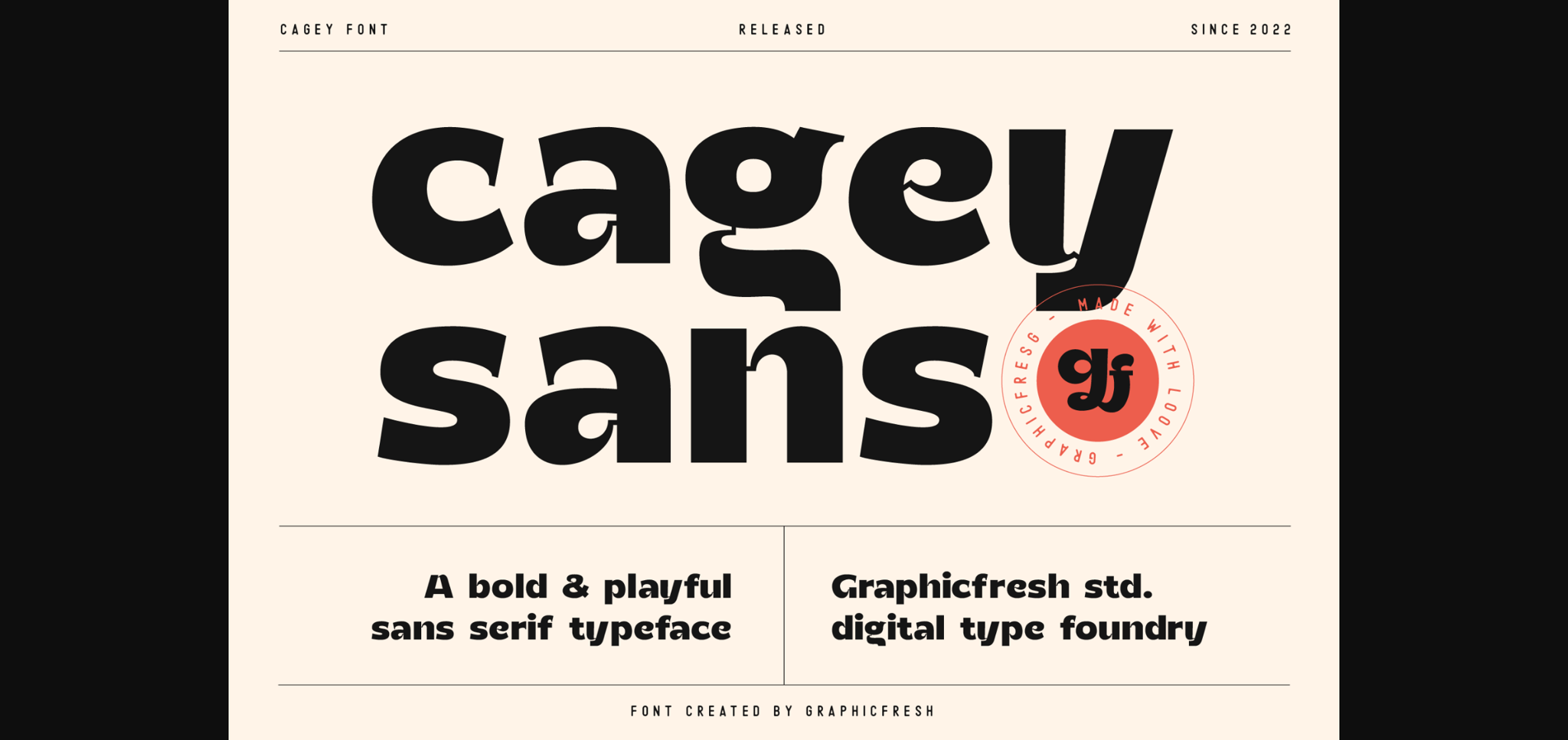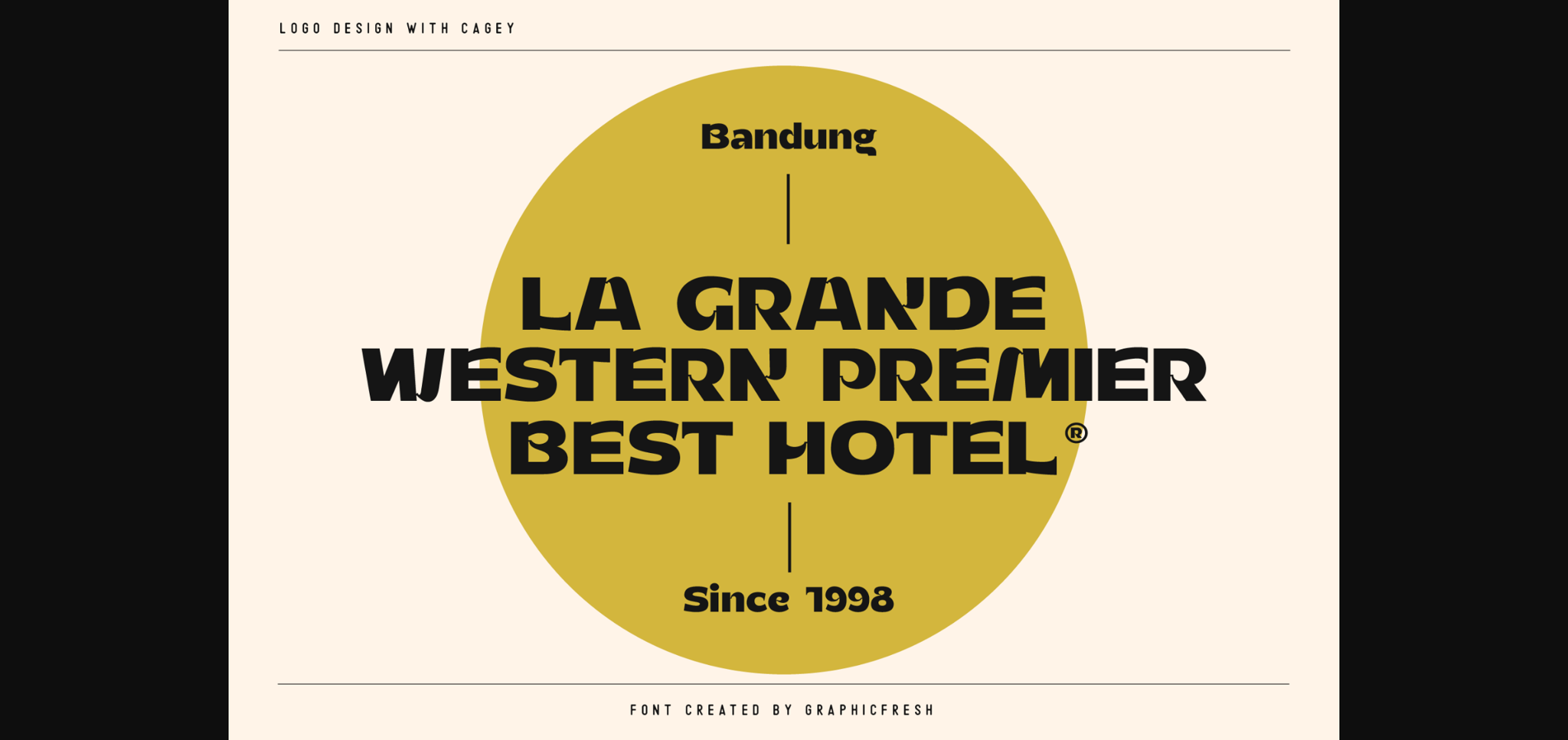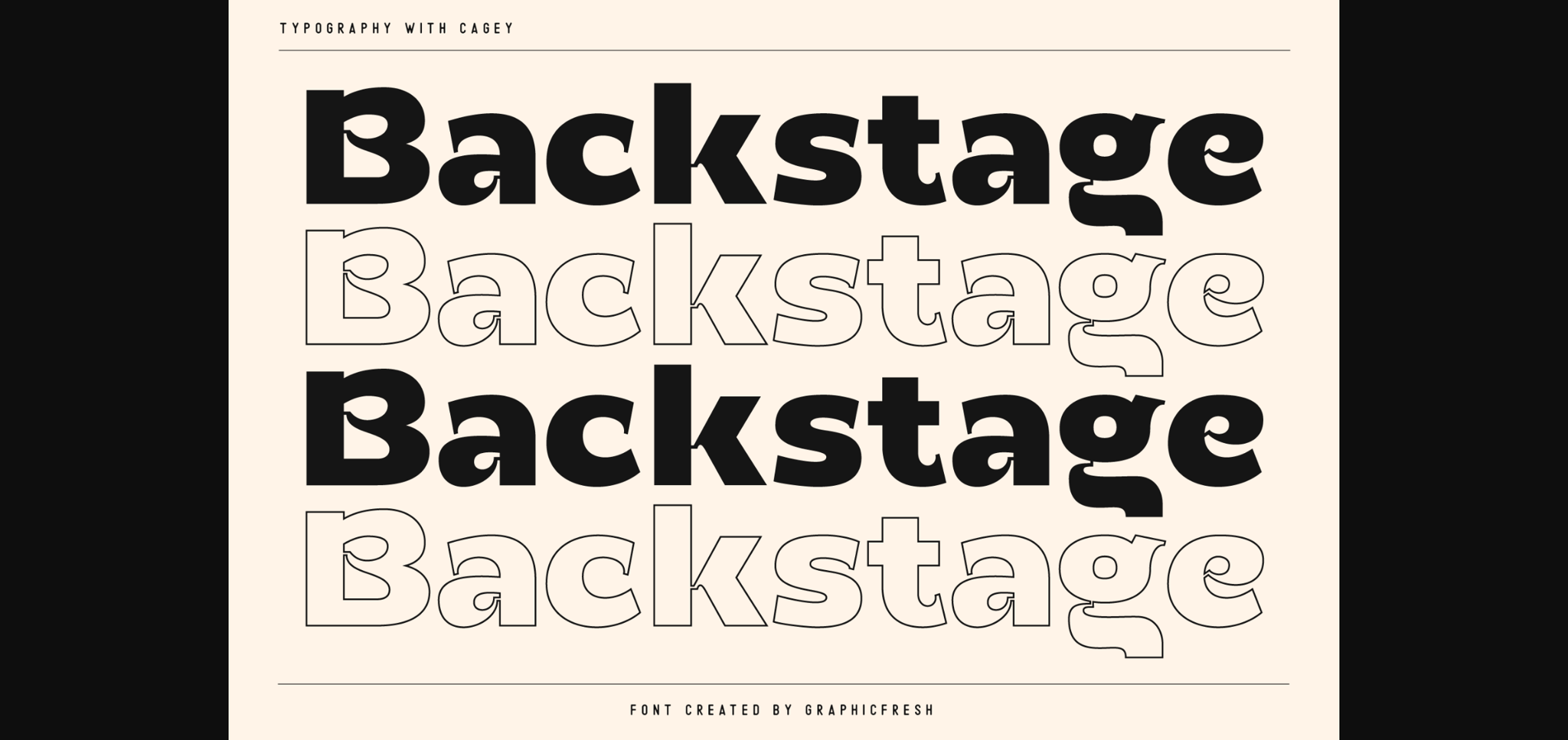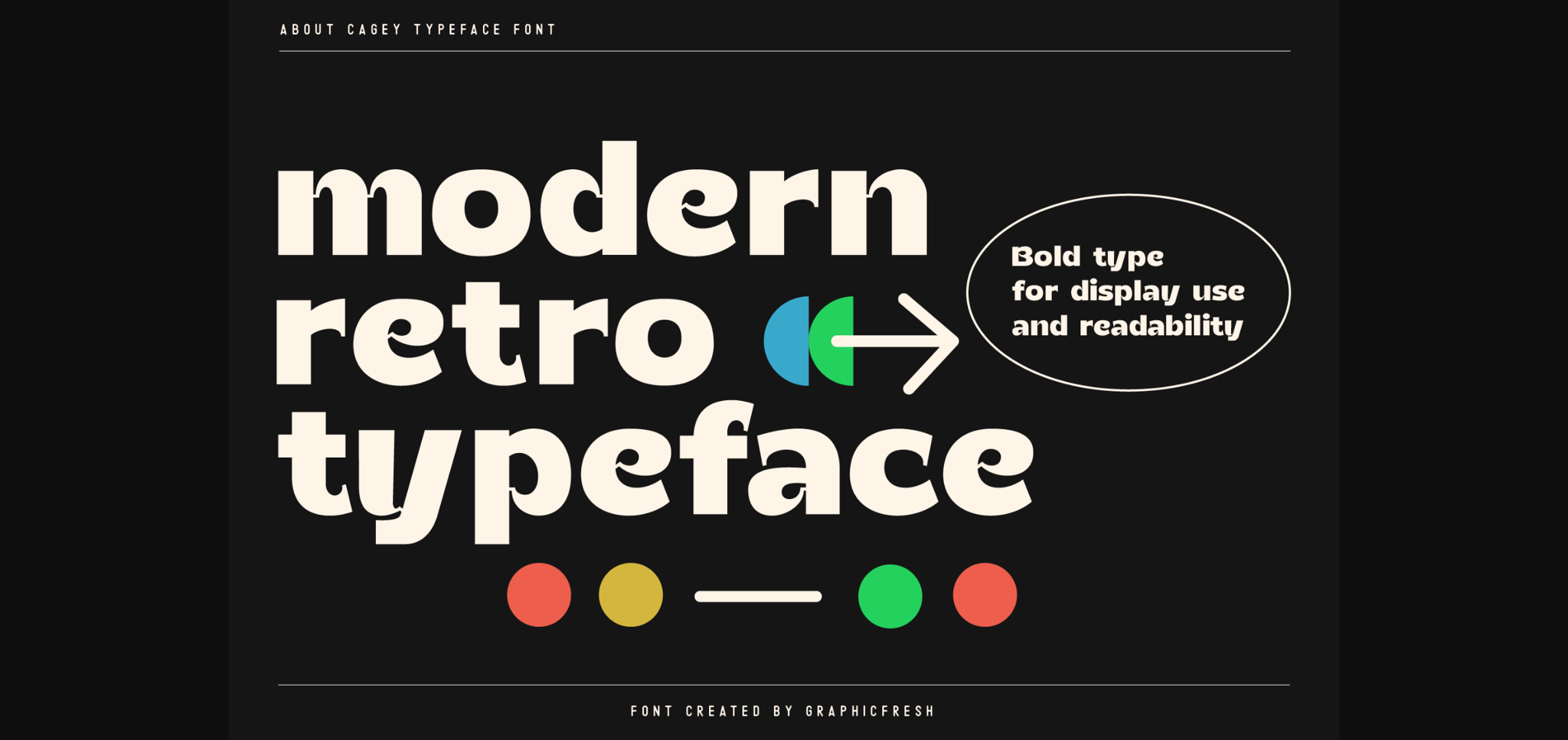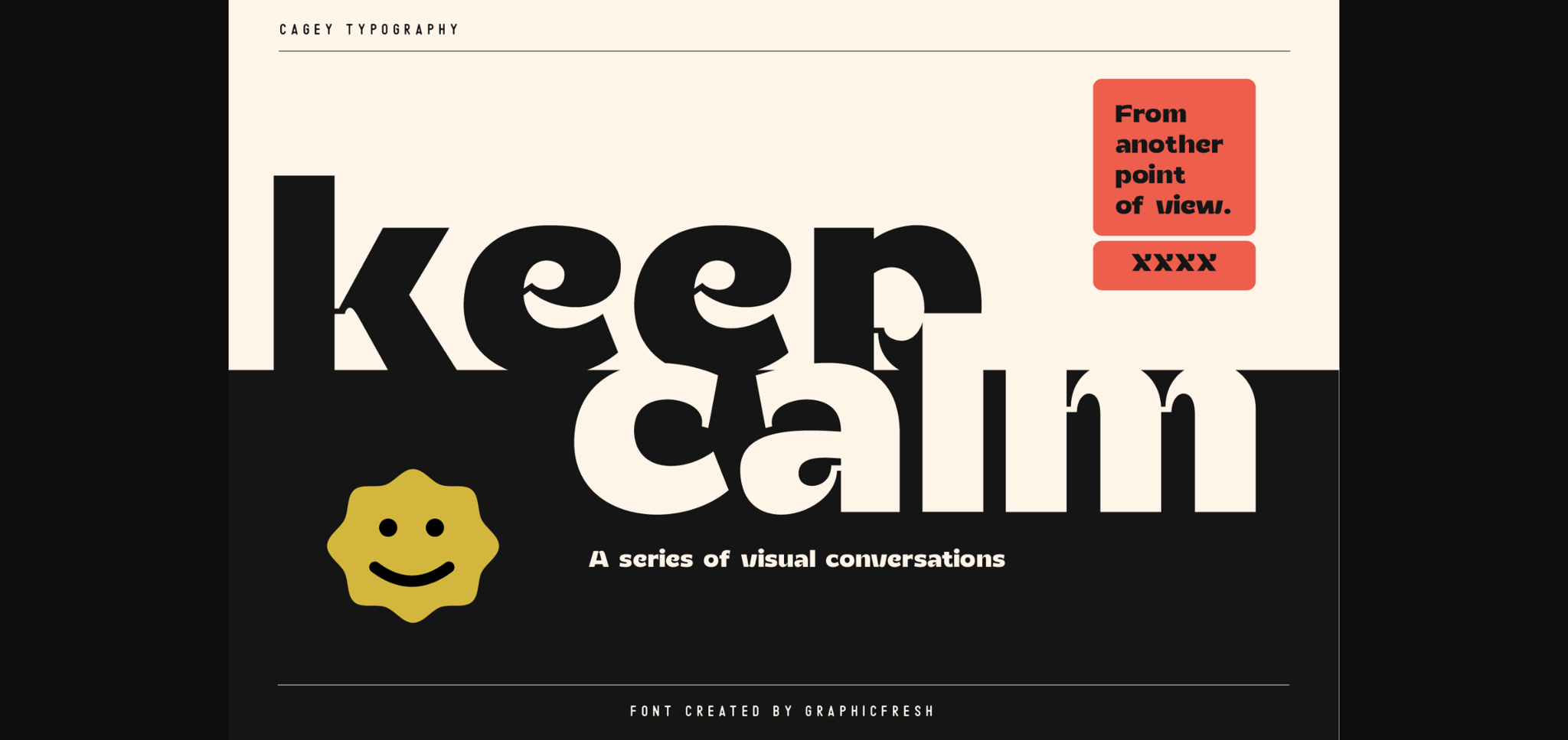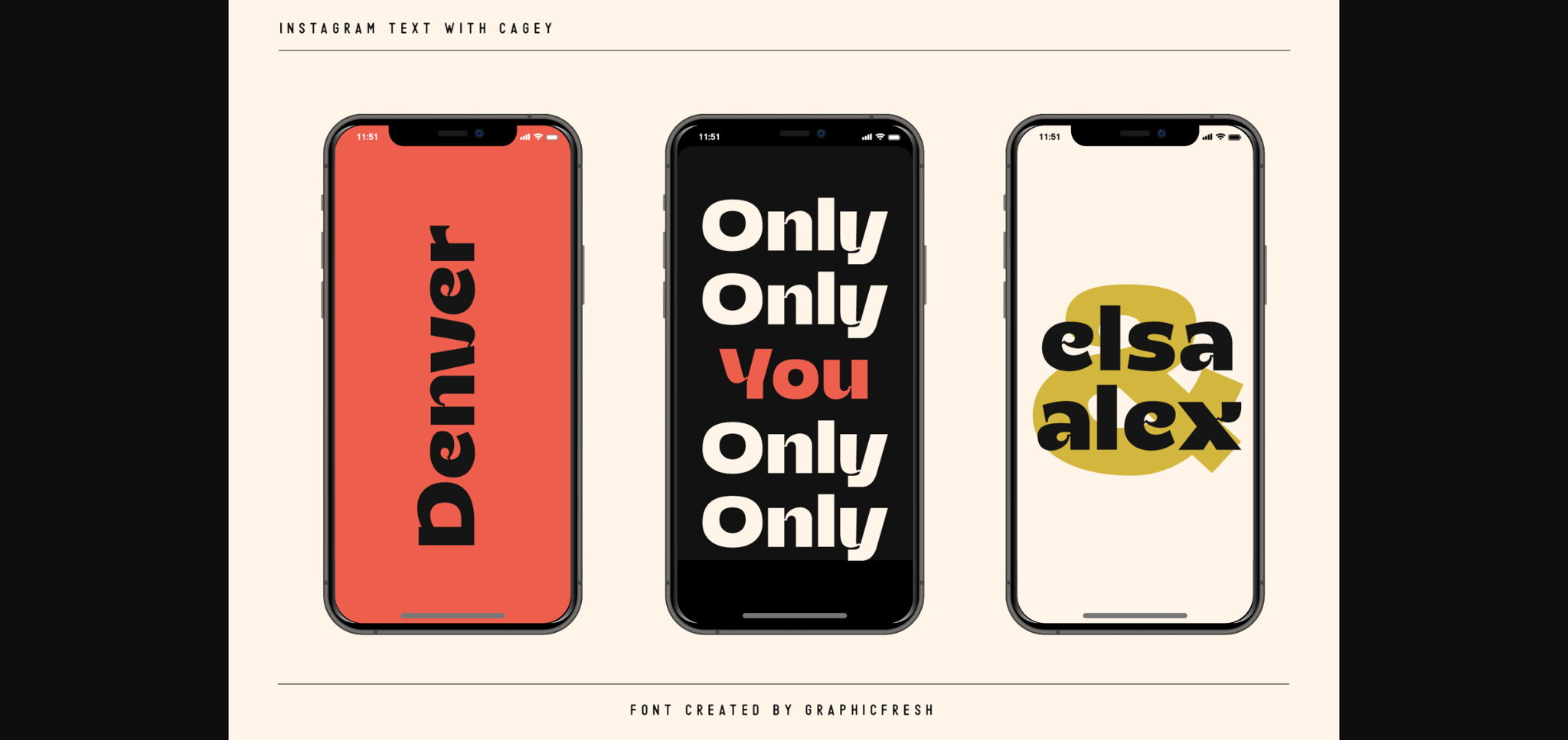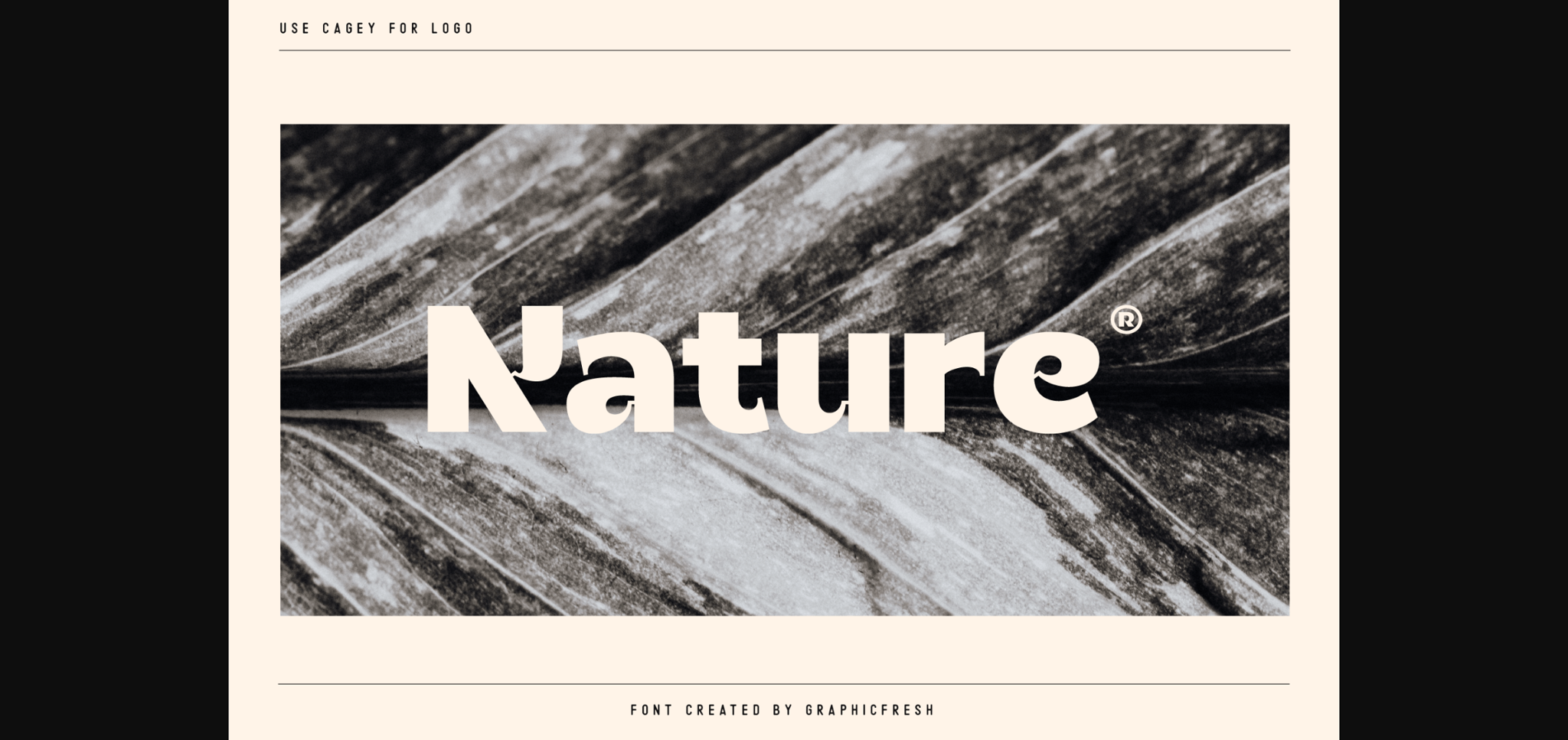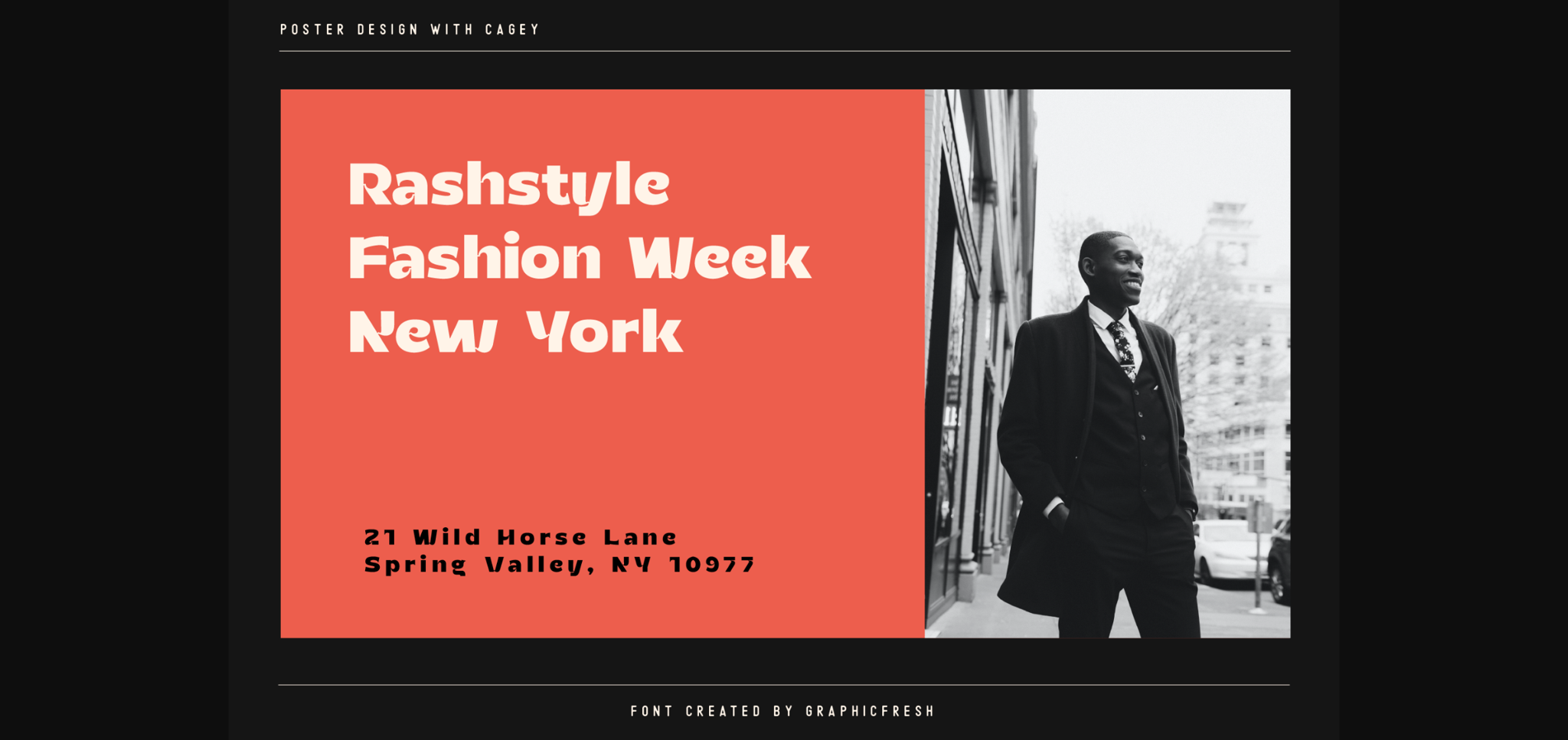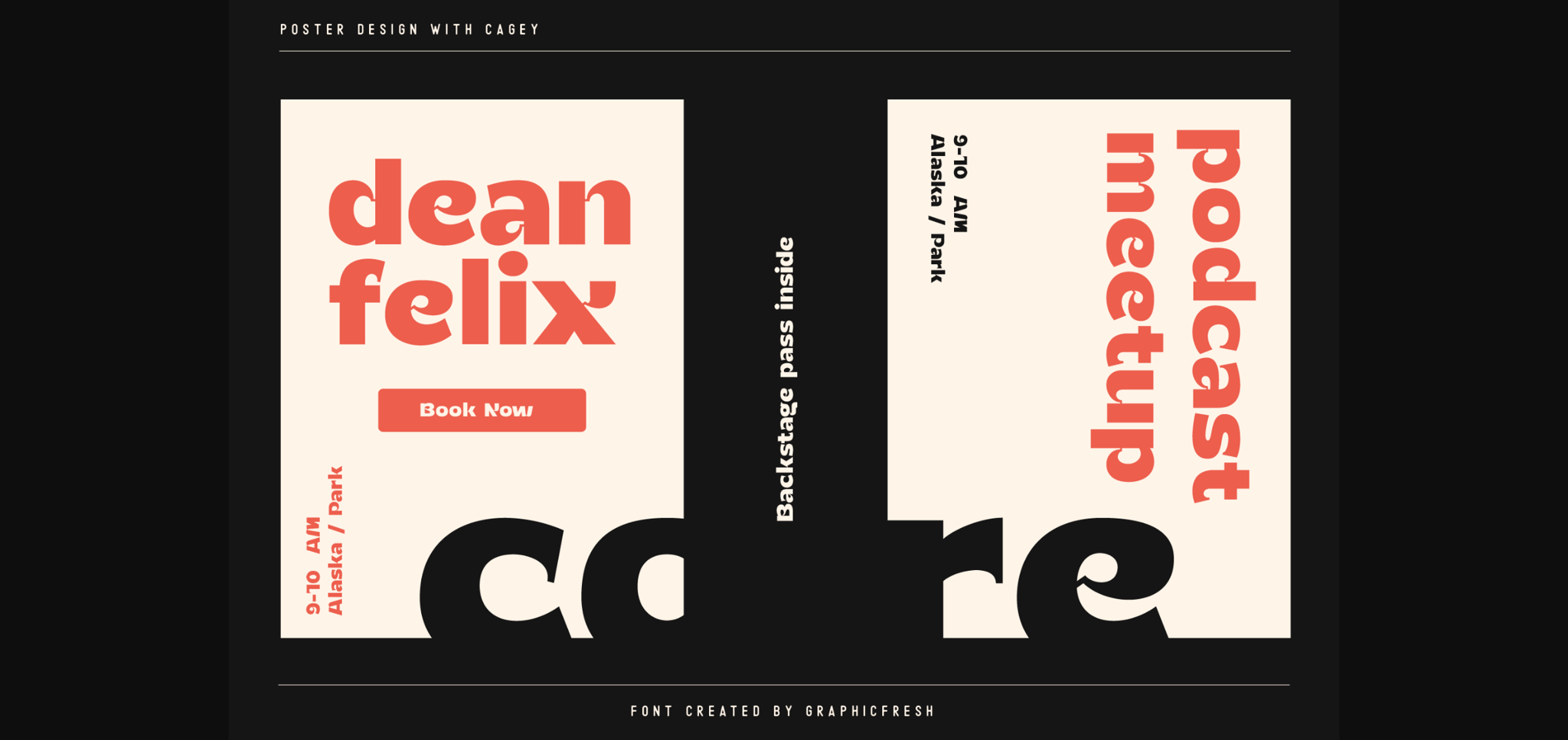
HomeSans Serif FontsCagey Font Sans Serif Fonts Cagey Font FacebookTwitterPinterestWhatsApp 1 of 11 ... Cagey Font Poster 2... Cagey Font Poster 3... Cagey Font Poster 4... Cagey Font Poster 5... Cagey Font Poster 6... Cagey Font Poster 7... Cagey Font Poster 8... Cagey Font Poster 9... Cagey Font Poster 10... Cagey Font Poster 11... About Cagey Font Cagey – The Bold Retro Sans Serif Font. This font is synonymous with the 70s or 80s style design visuals, it looks bold and strong. It is also reminiscent of the past. DOWNLOAD NOW 200 0 People also explored Buttey Honey Font Kokan Font Lovely Kristine Font Happy Rainbow Family Font Udon Soup Childish Notes Font Moslia Font Graffito Queen Font Decorative-lights Font Good Work Font Remington Font TagsCageyCagey Font Previous articleHaldenweg FontNext articleMores Font LEAVE A REPLY Cancel reply Comment: Please enter your comment! Name:* Please enter your name here Email:* You have entered an incorrect email address! Please enter your email address here Website: Save my name, email, and website in this browser for the next time I comment. Unlock Endless Creativity with the FREE September Clipart Huge Bundle (Valued at $700!) Personal Use Free Rocketto Personal Use Free Read more Mike Ferrari 16017 Personal Use Free Read more Beautiful Personal Use Free Read more Dealisya Personal Use Free Read more BLOG Free Fonts Risk: Why Free Fonts Can Be Dangerous for Designers Free Fonts Risk: Why Free Fonts Can Be Dangerous for Designers Using free fonts is a common practice in web and graphic design. However, the... Transform Your Website: Elevate Your Typography with 7 Best Web Font Generators Using Fonts in Digital Marketing: Tips to Strengthen Your Brand Identity Where to Buy American Fonts Online in 2024